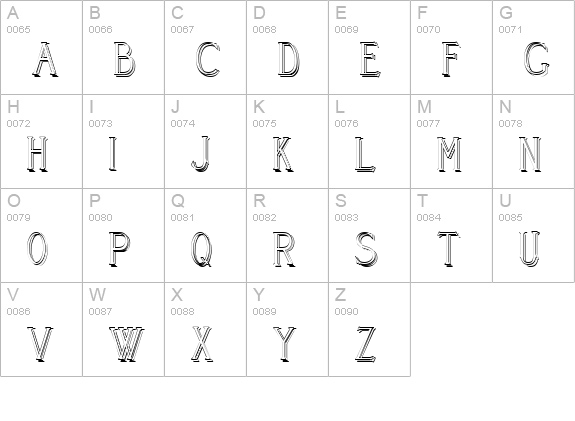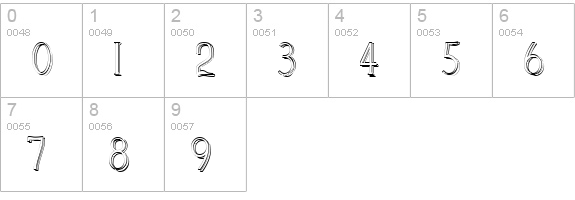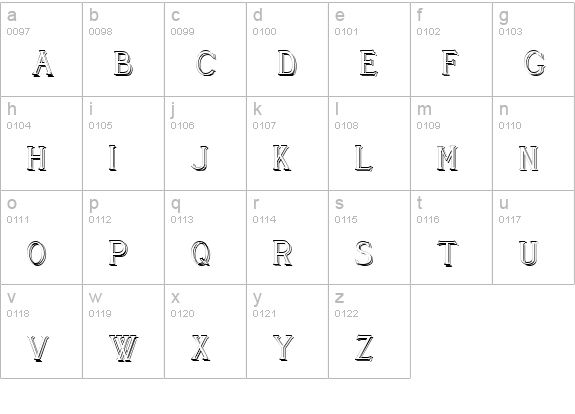
Cleaver's_Juvenia_Raised Font Details
Cleaver's_Juvenia_Raised font is a stylish and sophisticated typeface that exudes elegance and charm. With its intricate detailing and graceful curves, this font is perfect for adding a touch of class to any design project. The raised effect of the letters gives a sense of depth and dimension, making each word stand out beautifully. What sets Cleaver's_Juvenia_Raised font apart is not only its visual appeal but also its versatility. Whether you're creating invitations, posters, logos, or any other creative project, this font will elevate your design to the next level. And the best part? Cleaver's_Juvenia_Raised font is completely free to download at FontsMarket.com. So go ahead and add this stunning font to your collection today and let your creativity shine!